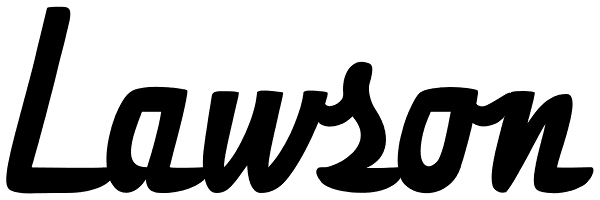
Lawson
Okaycat Font Foundry proudly presents "Lawson"! A retro classic style font, perhaps futuristic, containing European accents. Beautifully connected cursive with high legibility and style for your design, great for print and publication.